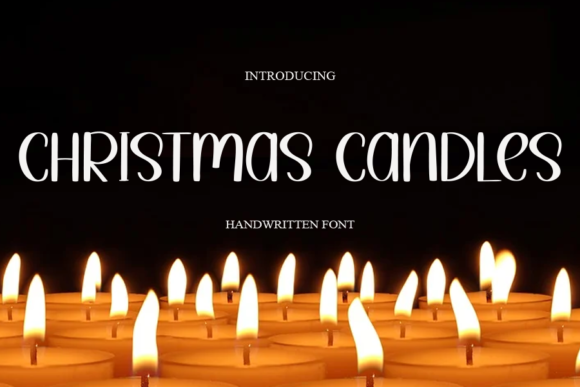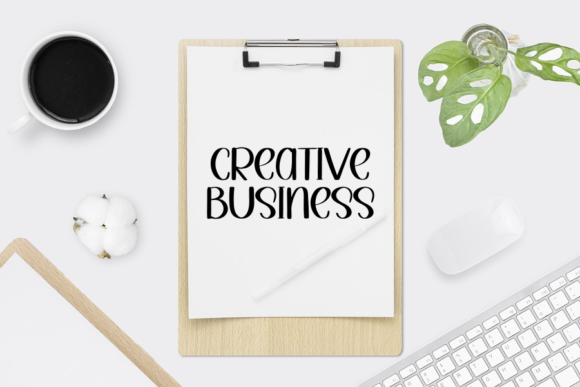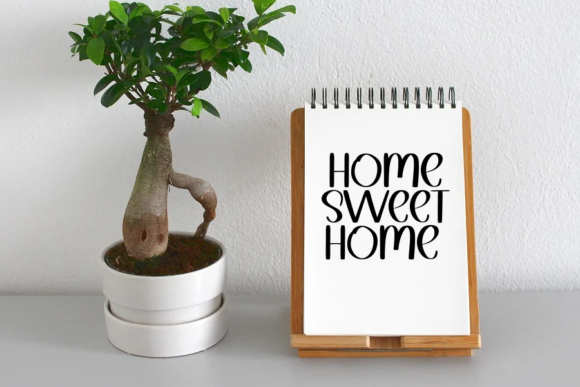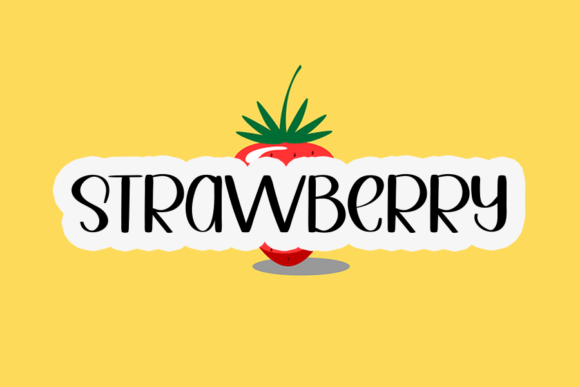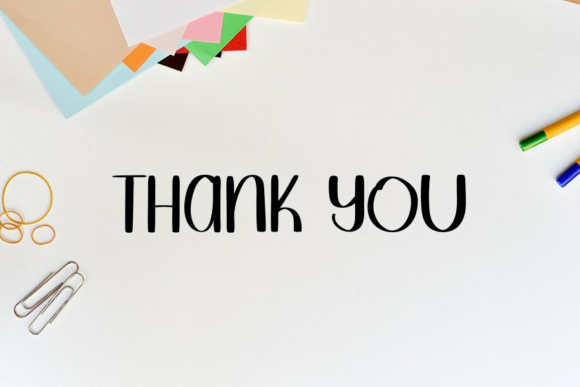
Christmas Candles Font
About Christmas Candles Font
Christmas Candles is a lovely handwritten font featuring charming, playful characters that seem to dance along the baseline. Add this font to your most creative ideas, and notice how it makes them stand out!